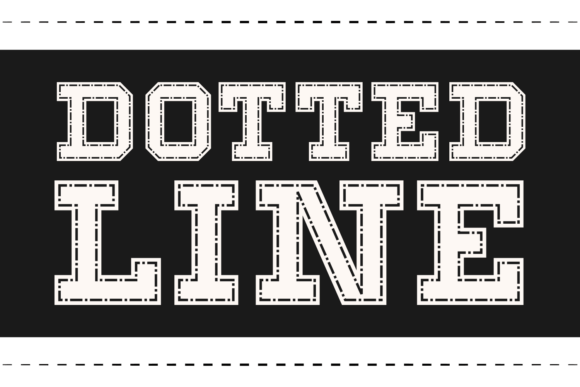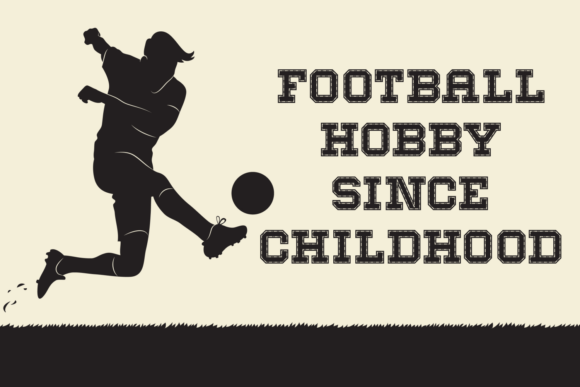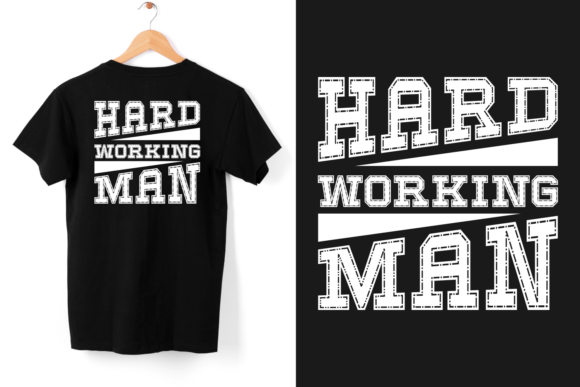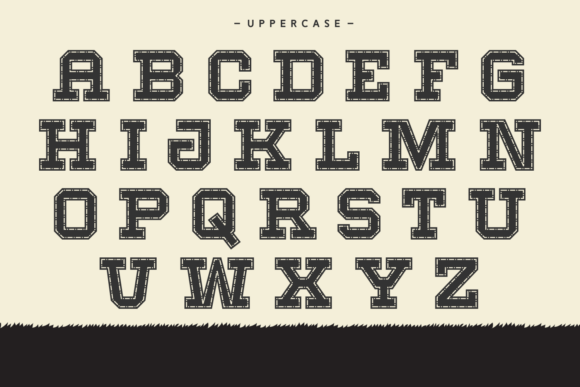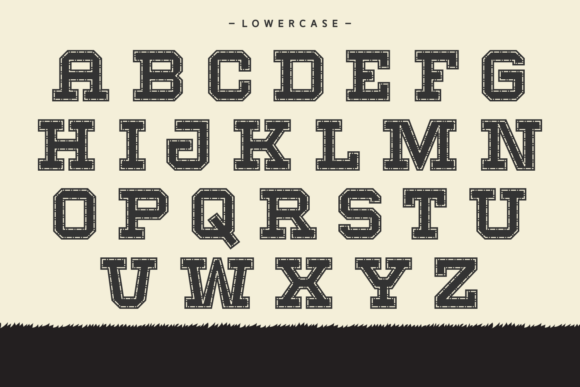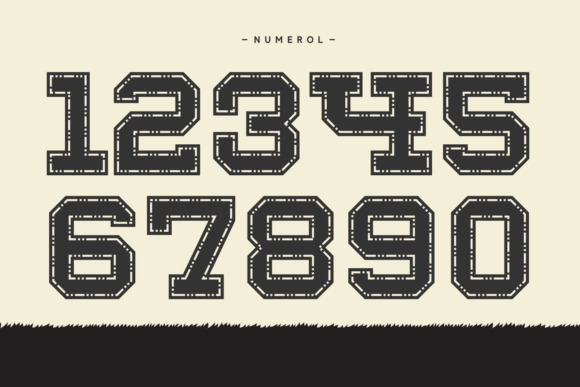
Introduction to Like Lines Font
Drawing its inspiration from vintage style, Like Lines Slab Serif Font is imbued with an old-world charm while maintaining a clean and modern appeal.
This thick, authentic font ties the classic and contemporary together, making it ideal for branding, card-designing, and packaging Look no further for a versatile font that effortlessly fills the pages of a book or magazine while still being trendy enough for a stylish T-shirt typography or a compelling logotype.